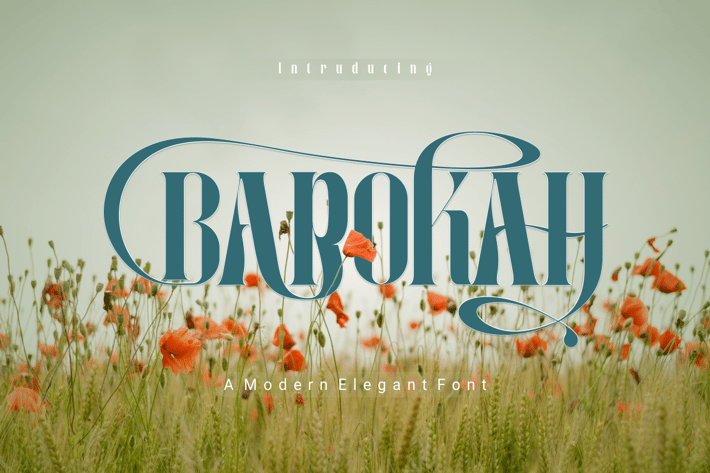
Barokah - Modern Elegant Font
Introducing our new product Barokah - Modern Elegant Font Modern Font
Barokah - Modern Elegant Font - Modern Font is a bold and authentic display font. The font is suitable for any branding project like logo, t-shirt printing, esport, and many more. outstanding in a wide range of contexts.
lowercase
ligature
alternatif